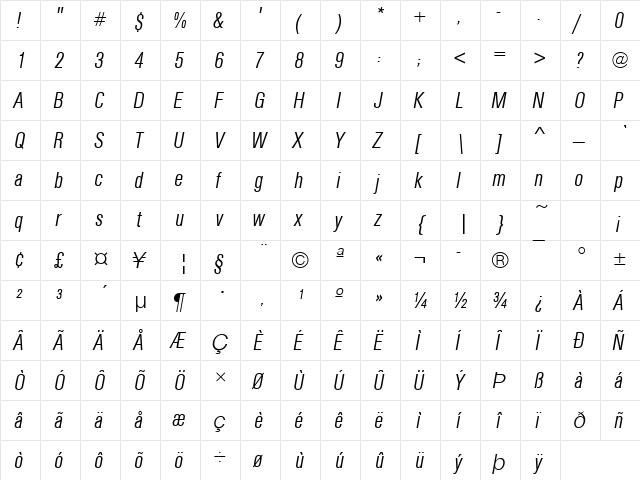
URWAccidaliaBucTLigCon Italic Font Preview
URWAccidaliaBucTLigCon Italic
Design Context for URWAccidaliaBucTLigCon Typeface
URWAccidaliaBucTLigCon is a composed and adaptable typeface that performs quietly and consistently across a wide range of design contexts. The dynamic lean of this cut emphasises speed and emphasis in any layout.
Pro Tip: Use URWAccidaliaBucTLigCon for emphasis, pull quotes, and subheadings where its slanted energy can add rhythm to the layout.